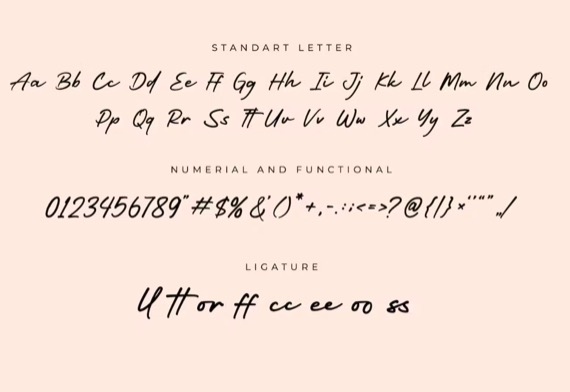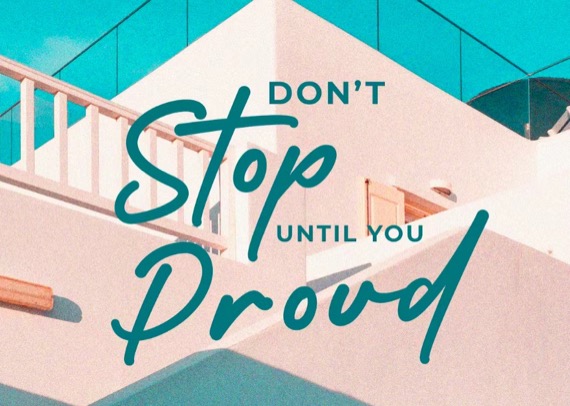
Comfort Home Font
Proudly present the stylish handwritten font “Comfort Home” for your business. Comfort Home – modern style font which can be interpreted professionally. We keep this font looking modern, readable, stylish, catchy, and easy to use.
Comfort Home – is the great choice for watermark on photography, branding, wedding event, signature or signature logo design, quotes, album cover, magazine, business card and many other design project. Comfort Home here to make your work to high level!!!